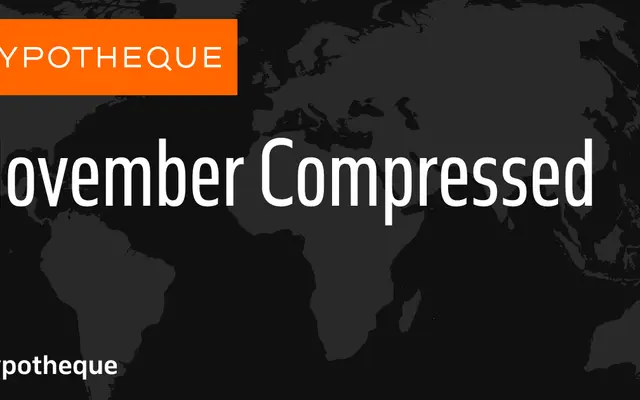
November Compressed specimen from Typotheque
The compressed width variant of Typotheque's November System, a nine-weight grotesque family available in three widths and a variable version.
November Compressed is one of three width variants within the November System, sitting alongside the standard and condensed cuts. Nine weights run from Hairline to Black, each with a matching italic, giving the system 54 styles across the non-variable widths. A variable font rounds out the offering, covering the full weight and width range in a single file.
November Compressed is part of the November System, a multi-width grotesque sans family. The compressed width sits alongside the standard and condensed cuts, sharing the same nine-weight grotesque structure.